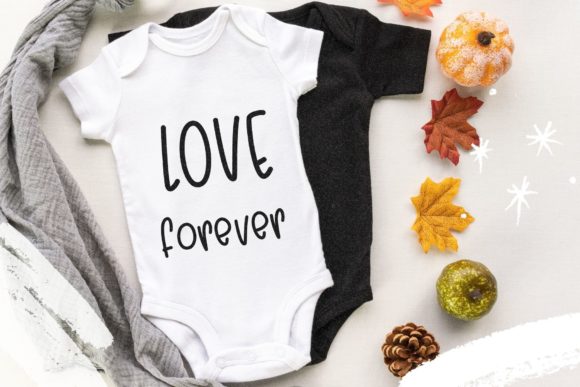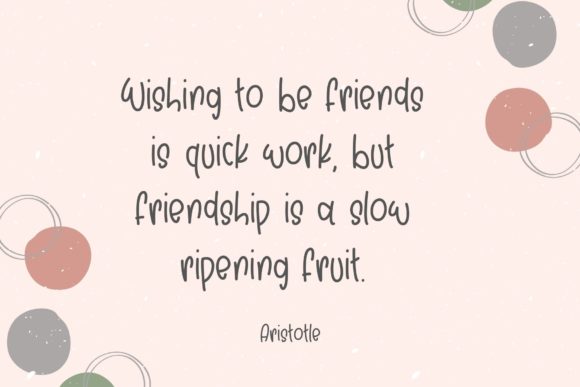
Farmhouse Crafter Font
db-ku.com - Script & Handwritten -- Farmhouse Crafter is a cute and quirky handwritten font. A bit sloppy and asymmetrical, this font will brighten up each of your crafts!